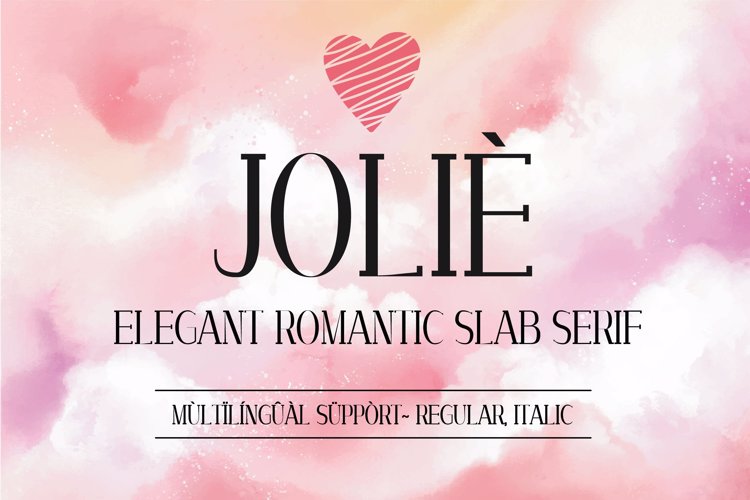
JOLIE Font
🎨 Font Name: JOLIE by Minimalist Art Studio
🎨 Font Description: Joliè is a romantic slab serif with graceful curves and multilingual charm, perfect for elegant branding and heartfelt design.
✔ Complete Latin set + multilingual diacritics
✔ Alternates, stylistic sets & ligatures
✔ Numbers, small caps, and extended punctuation
✔ Bonus italics and family styles